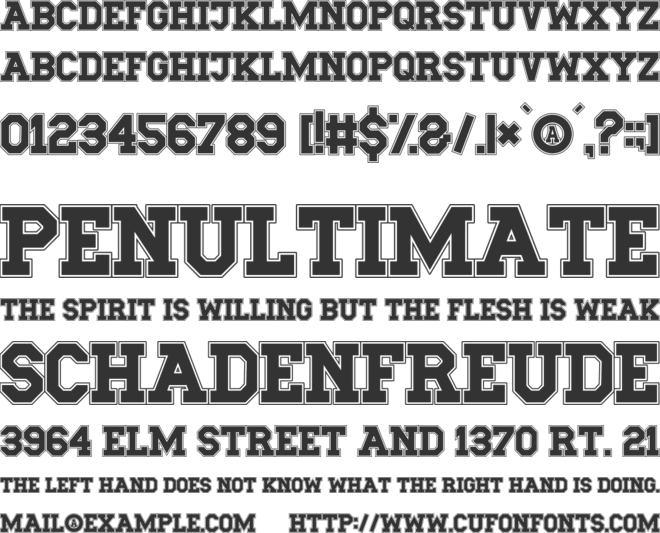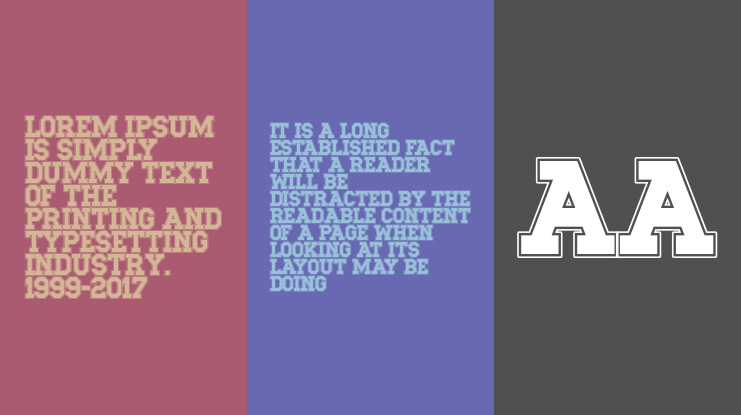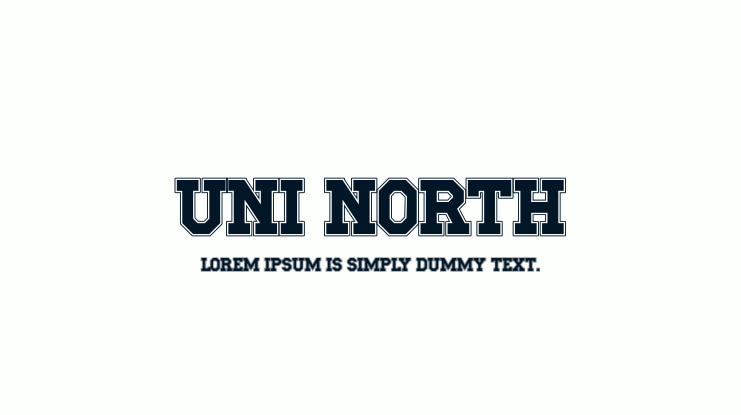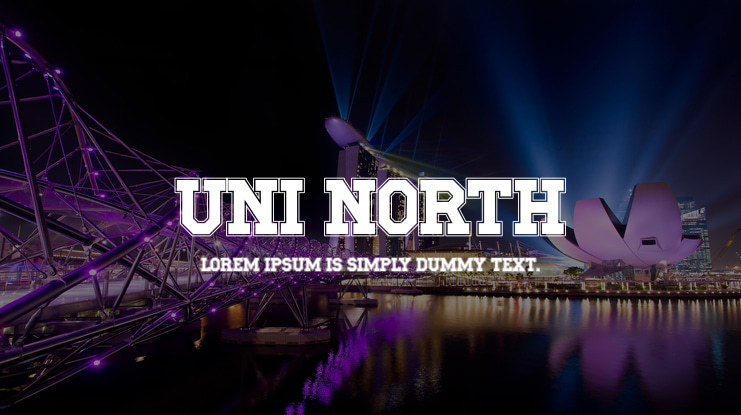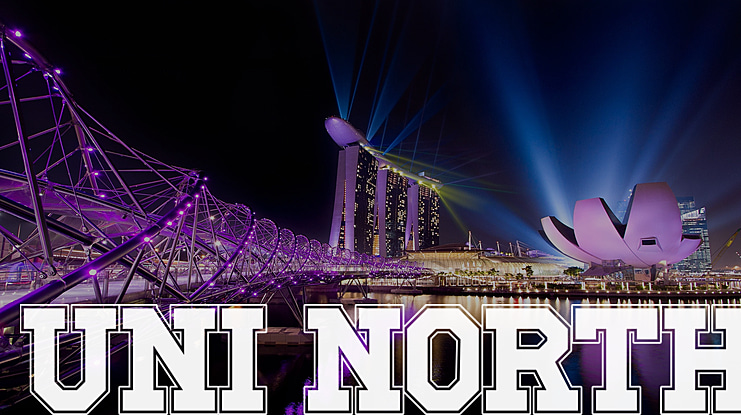
UNI North Font
UNI North Font is a handcrafted vintage and slab serif. Inspired by university sports, retro posters, and magazines, postcards, and ads from the 70's to the '90s.
The font comes in 9 styles. From Regular to Italic, College variation, and many others.
The font stays in memory once you see it and it is ideal for display text, print, and also for user interfaces, mobile devices, web design, and posters, with a set of optimal characters for your design in any layout.
It looks especially great on a large scale, although it still carries it at smaller point size